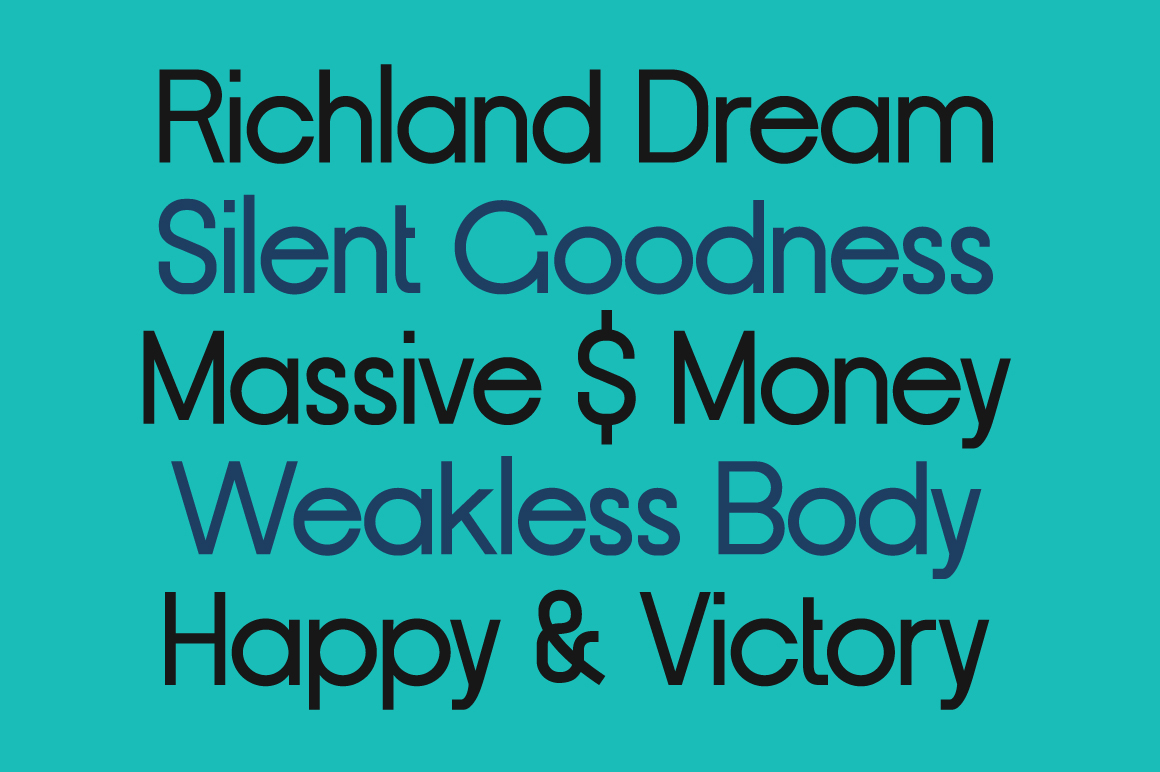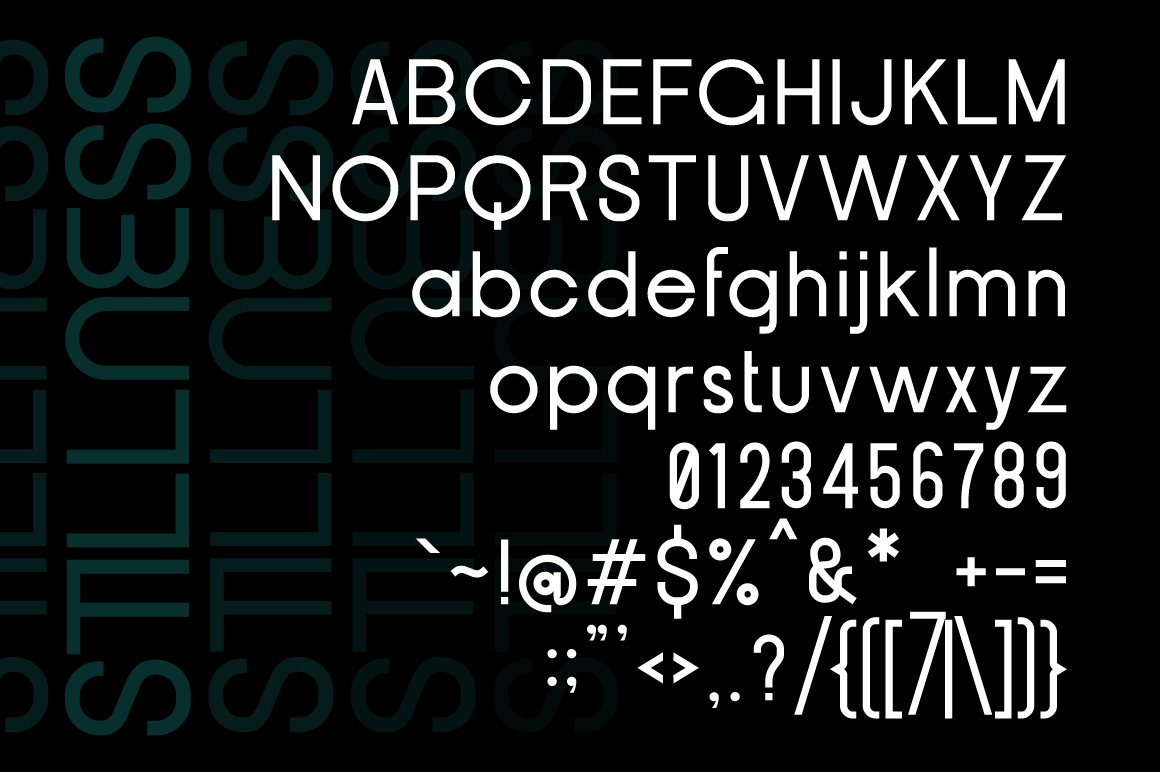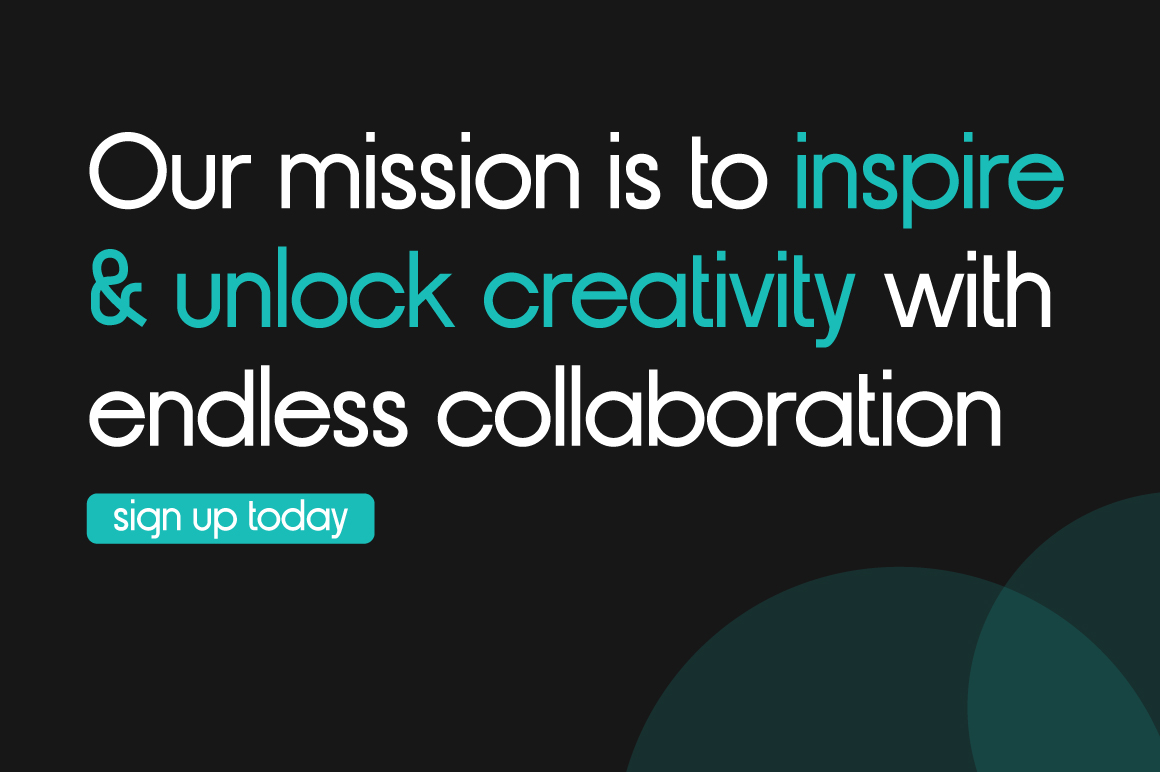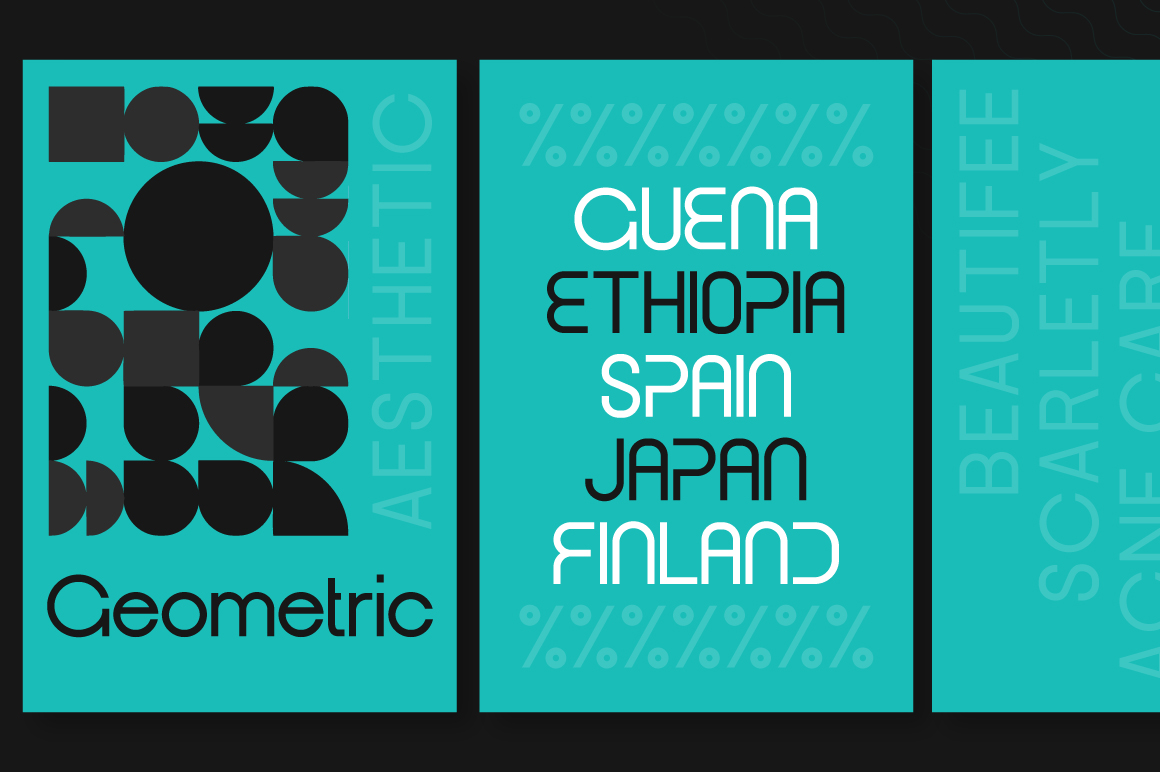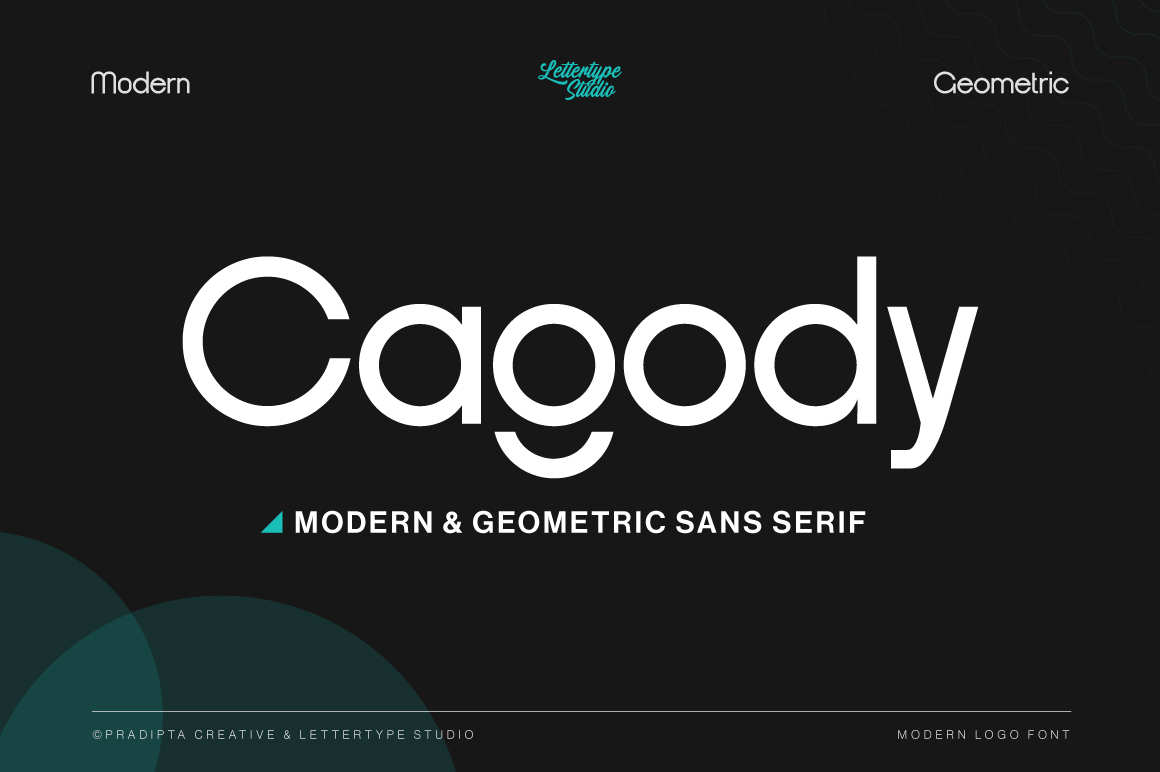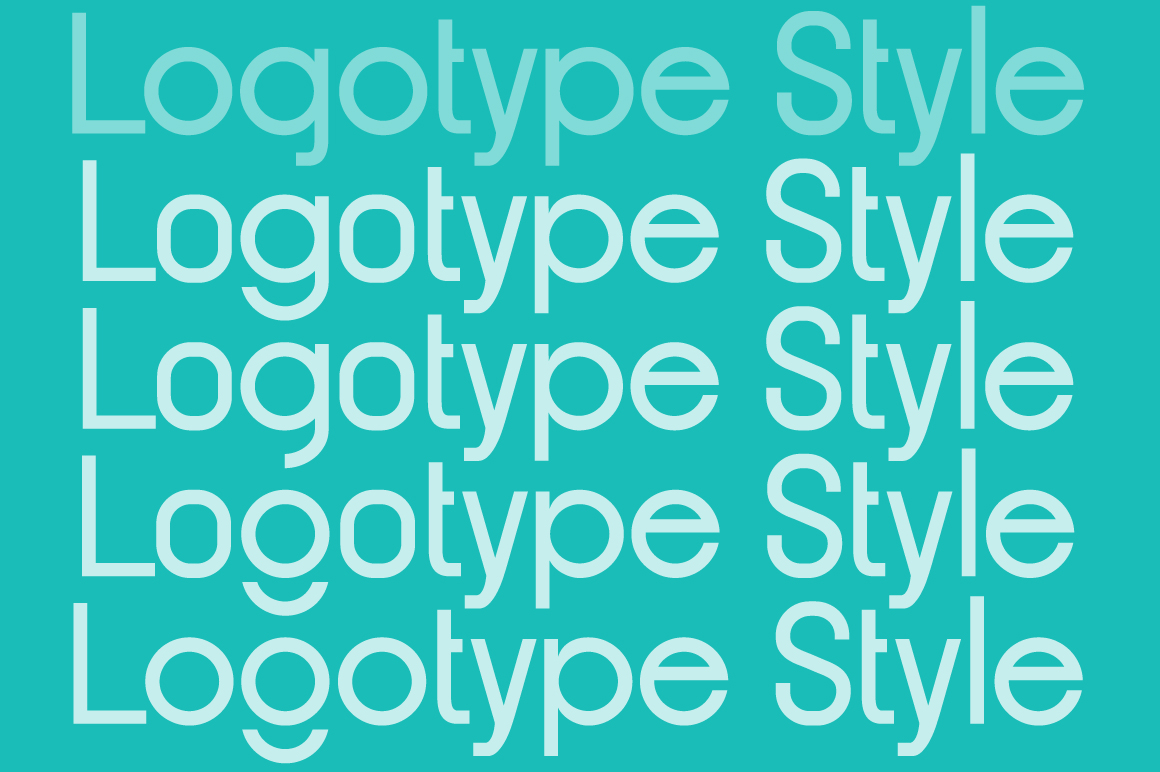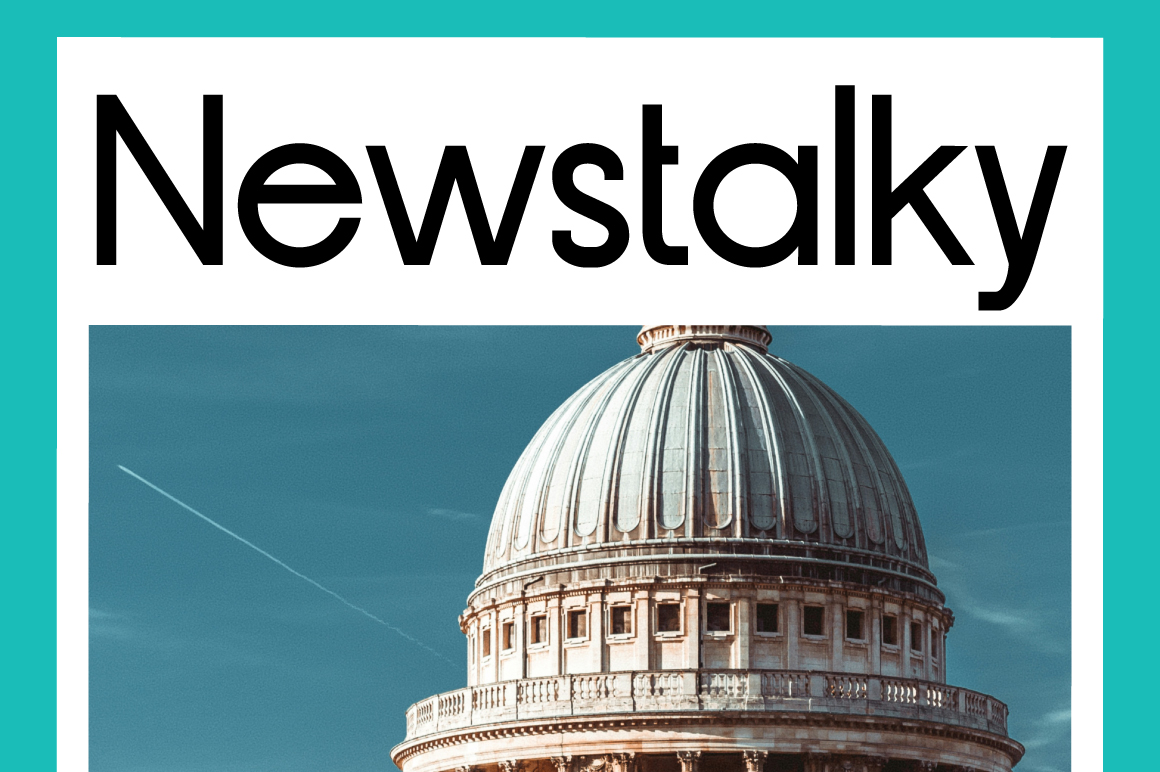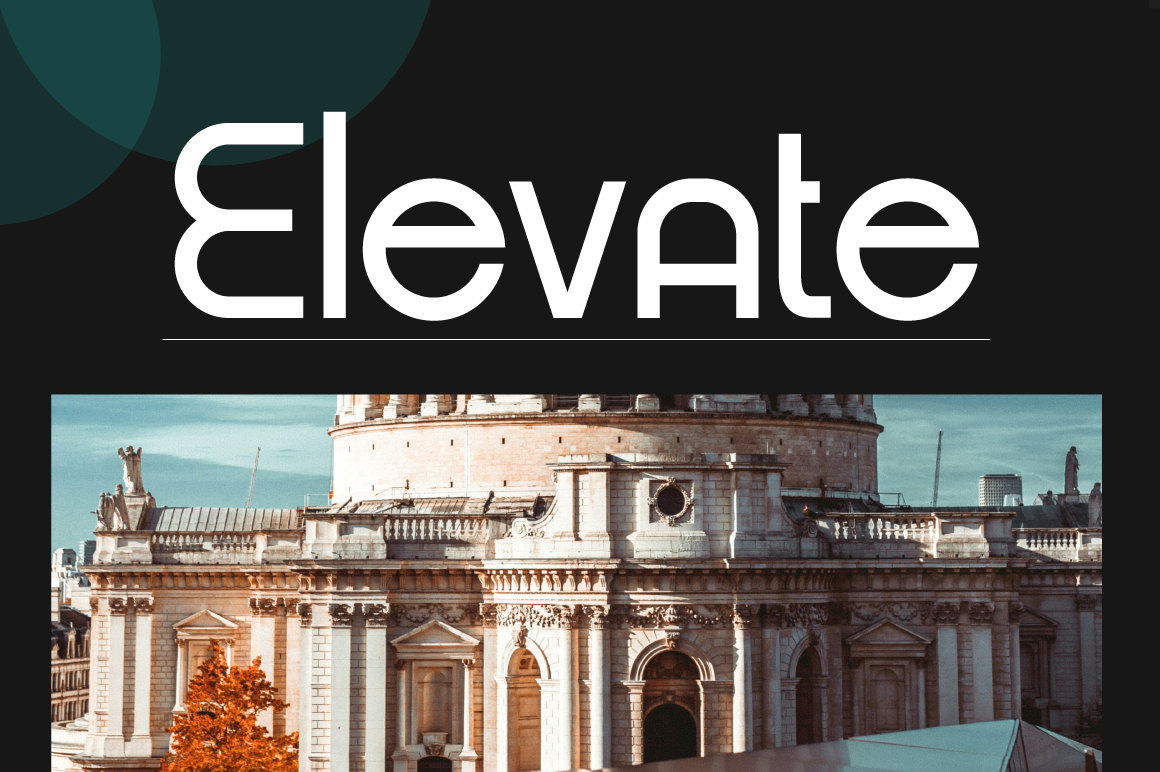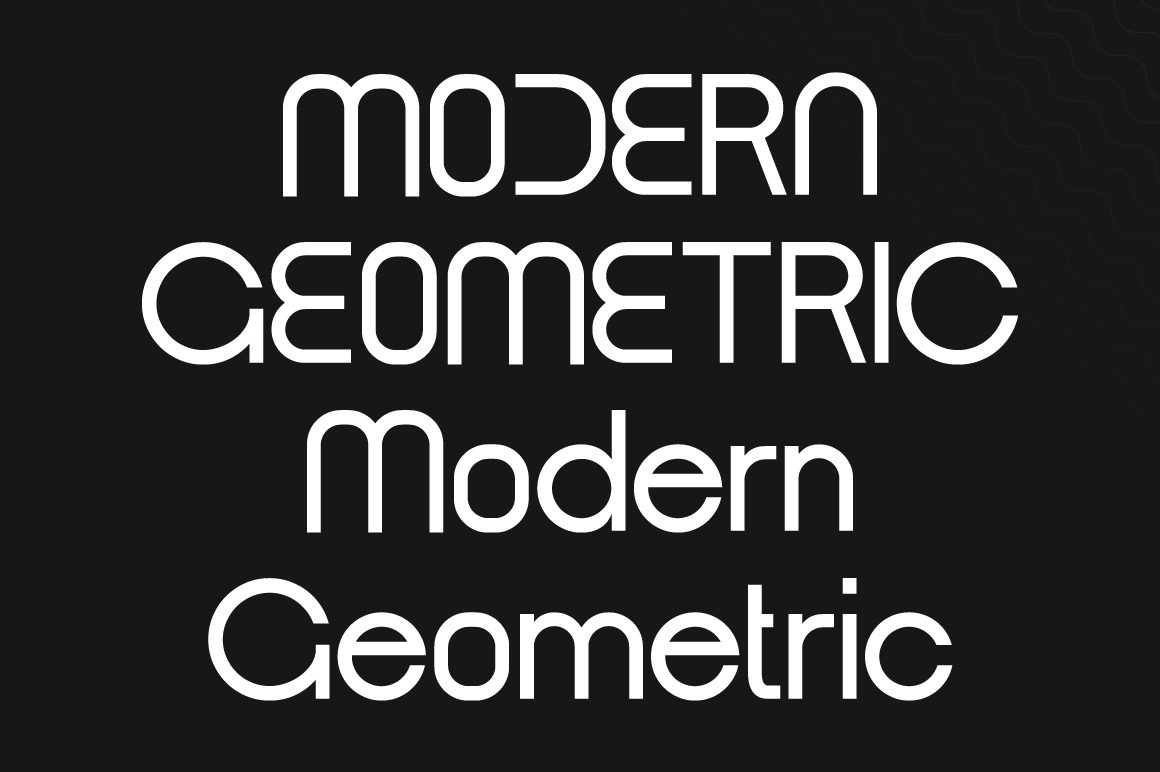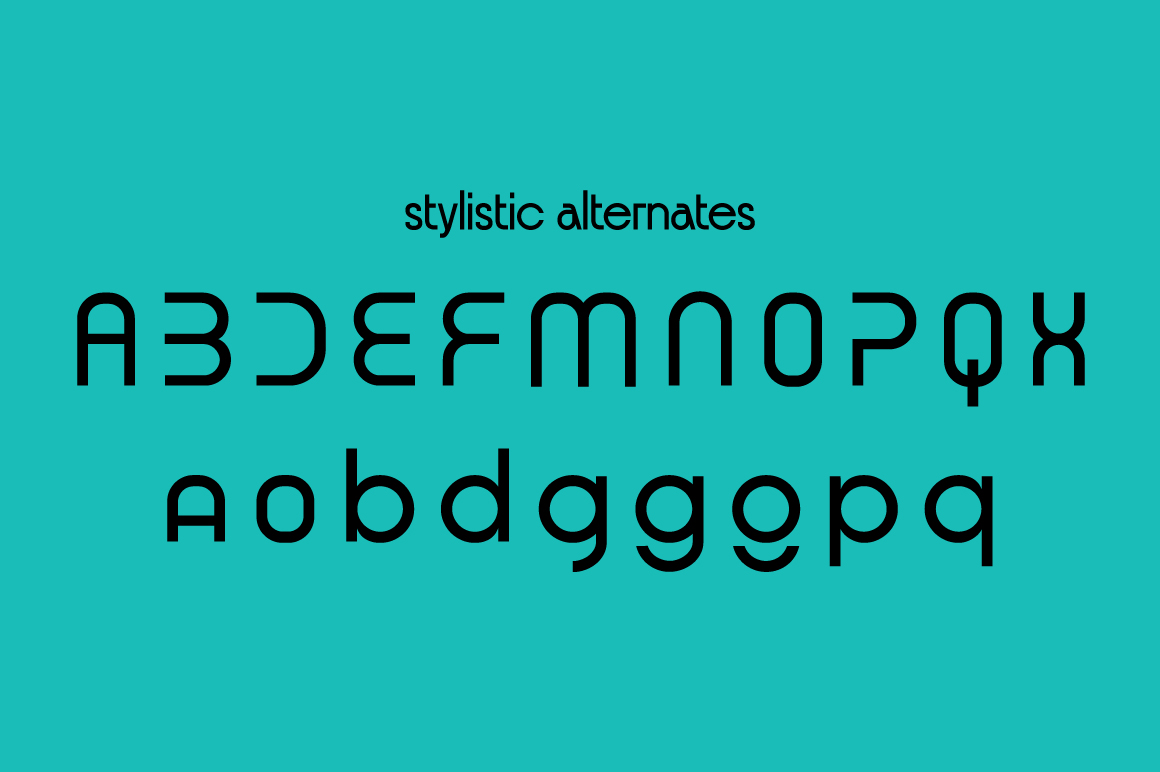
Cagody
Cagody is a modern geometric sans serif font crafted for clean, professional, and creative design. With its refined structure and over 20 alternate glyphs, it gives designers the flexibility to create unique, standout branding and visual identities.
Perfect for logos, posters, and editorial layouts, Cagody blends elegance with versatility. Whether used for minimal typography or bold statements, it delivers precision, balance, and timeless modern appeal across digital and print media.
• Minimal logo design & modern corporate branding
• Social media posts, ads & packaging layouts
• Fashion, lifestyle & editorial projects
• Invitations, product labels & portfolio design
• Clean typography for digital and print use